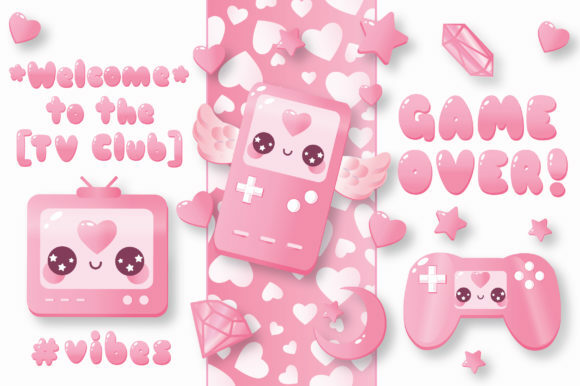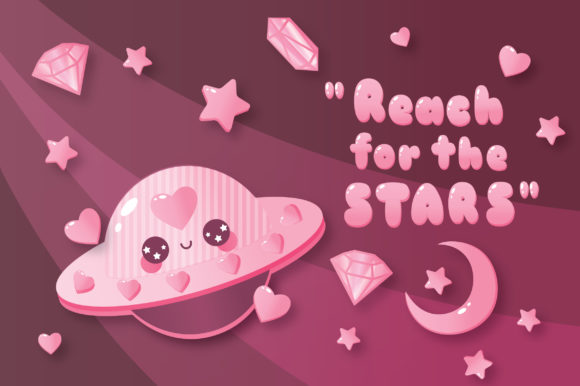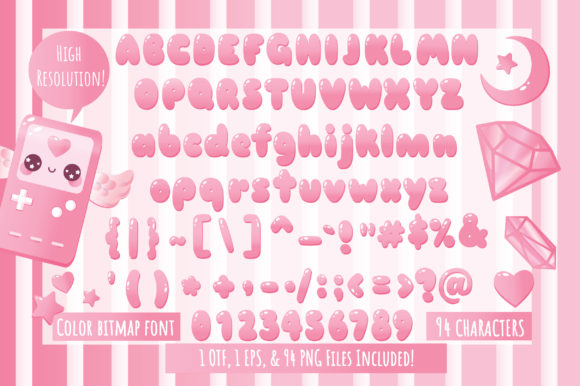
Cheery Pink Dreams Font
About Cheery Pink Dreams Font
Introducing “Cheery Pink Dreams,” an incredibly fun and bubbly font that is guaranteed to make your projects stand out with its vibrant and lively personality. This font is designed to bring joy and cheerfulness to any design, making it a perfect choice for various creative endeavors.
With its playful and energetic style, “Cheery Pink Dreams” adds a touch of whimsy and excitement to your projects. Whether you’re working on invitations, greeting cards, social media graphics, branding, or any other design project, this font will instantly uplift the mood and create a delightful visual experience.
What sets “Cheery Pink Dreams” apart is its gorgeous set of extras, which includes unique and eye-catching elements that will ignite your creativity. These extras offer a range of decorative elements, such as doodles, ornaments, flourishes, and more, allowing you to enhance your designs and add that extra touch of charm.
With “Cheery Pink Dreams,” you have the freedom to experiment with different colors, sizes, and combinations to create personalized and captivating compositions. Let your imagination run wild and infuse your designs with the joyful spirit of this font.
Whether you’re designing for personal projects, professional branding, or any other creative endeavor, “Cheery Pink Dreams” will add a dose of fun and liveliness that will make your work truly stand out.
So, let your projects come alive with the vibrant energy of “Cheery Pink Dreams.” Embrace its playful nature, explore the delightful extras, and let your creativity soar to new heights. Get ready to create designs that are bursting with joy and captivate the hearts of your audience.